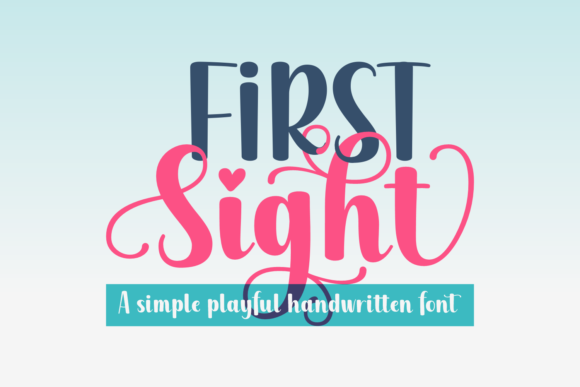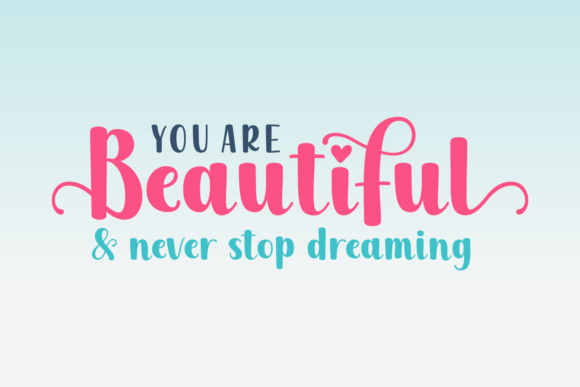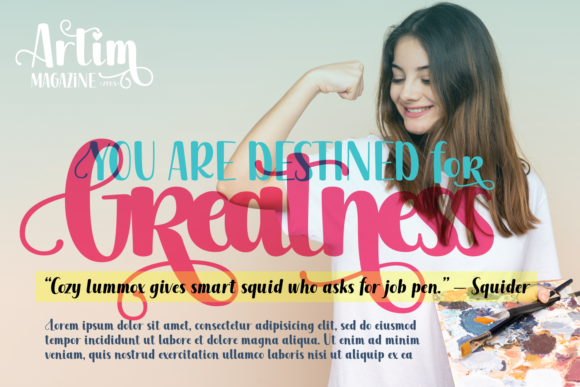
First Sight Font: A Cute Handwritten Script for DIY & Cricut Crafts
About the First Sight Font
Meet First Sight Font, a stunning font that brings a touch of elegance and professionalism to any design. First Sight is a simple and playful handwritten font. Joyful and bright, this font will make each of your designs come alive!
First Sight excels in headlines, short taglines, and branding elements where its playful nature shines. It’s ideal for projects targeting a young, energetic audience, such as children’s books, playful product packaging, or social media graphics. However, its informal style makes it unsuitable for body text or lengthy content; legibility suffers in extended use. Avoid using it in user interfaces (UI) or situations requiring high readability.
Pairing First Sight with a clean sans-serif like Open Sans for body copy creates a balanced design. For a more sophisticated look, consider pairing it with a classic serif such as Garamond, allowing the playful script to contrast effectively with the formality of the serif. Alternatively, a geometric sans-serif like Futura could add a modern edge.
Its core personality is undeniably joyful and friendly, conveying a sense of lightheartedness and approachability. This makes it perfect for brands wishing to project a youthful, optimistic image.